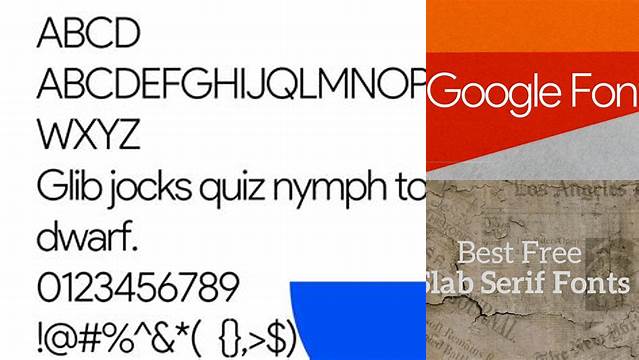
Free Google Sans Fonts: Top Alternatives For Designers
Introduction to Google Sans and Free Font Alternatives
Hey guys! Let's dive into the world of Google Sans, a font that has become synonymous with modern, clean design. You've probably seen it everywhere, from app interfaces to websites, and maybe you're even thinking about using it for your own projects. But hereâs the thing: Google Sans isn't exactly free for everyone to use in every context. So, what's a designer or developer to do? Don't worry, we've got you covered! In this comprehensive guide, weâre going to explore what makes Google Sans so appealing, its licensing restrictions, and most importantly, the awesome free font alternatives that you can use without breaking the bank or the rules. We'll also explore how to get the Google Sans font if you're developing for Android or using it within Google's ecosystem. We'll look at look-alike fonts and other open-source gems that will give your projects that sleek, contemporary feel. Whether you're working on a website, a mobile app, or even print materials, finding the right font is crucial. It sets the tone, enhances readability, and ultimately contributes to the overall user experience. So, let's jump in and discover the best options for achieving that Google Sans aesthetic while staying within the bounds of free and open-source licensing. Letâs make sure your typography game is strong!
What is Google Sans?
First off, let's understand what exactly Google Sans is. Google Sans, also known as Product Sans, is a geometric sans-serif typeface designed by Google for its corporate identity. It was first introduced in 2015 as part of Google's rebranding effort, replacing the older Google logo and font. The font is characterized by its clean lines, geometric shapes, and overall minimalist appearance, making it highly versatile for a wide range of applications. Its design emphasizes clarity and legibility, making it suitable for both display and body text. The aesthetic appeal of Google Sans lies in its simplicity and modernity. The geometric construction provides a structured and orderly feel, while subtle curves and variations add a touch of warmth and personality. This balance makes it a popular choice for tech companies and startups aiming for a contemporary and approachable brand image. The fontâs widespread use across Googleâs products and services, including Android, Chrome, and various web applications, has cemented its status as a recognizable and trusted typeface. Its influence can be seen in numerous other designs, as many seek to emulate its clean and modern aesthetic. However, the catch is that Google Sans is proprietary, meaning it's not freely available for all uses. This is where the need for free font alternatives comes into play. Knowing the nuances of Google Sans helps in identifying what qualities to look for in alternatives, ensuring your projects maintain a similar visual impact without infringing on copyright.
Top Free Font Alternatives to Google Sans
Okay, so now that we know the deal with Google Sans and its licensing, letâs get to the good stuff: free font alternatives! There are some fantastic typefaces out there that capture the spirit of Google Sans, offering a similar aesthetic without the licensing restrictions. These alternatives are perfect for a wide range of projects, whether you're designing a website, creating a mobile app, or working on print materials. The key is to find fonts that share the clean lines, geometric shapes, and overall minimalist feel of Google Sans. This section will introduce you to some of the best free alternatives available, detailing their characteristics and ideal use cases. Weâll cover everything from well-known open-source fonts to some hidden gems that you might not have discovered yet. By exploring these alternatives, you can ensure that your projects have a consistent and professional look, all while staying within the bounds of free and open-source licensing. Remember, the goal is to find a font that not only looks great but also fits the specific needs of your project, whether itâs readability, scalability, or overall aesthetic appeal. So, letâs dive in and find the perfect free font to complement your design vision!
1. Roboto
First up, we have Roboto. This is a super popular choice, and for good reason. Roboto is a neo-grotesque sans-serif typeface family developed by Google as the system font for its Android operating system. Itâs designed to be modern, approachable, and optimized for screen readability, which makes it an excellent free font alternative to Google Sans. One of the standout features of Roboto is its versatility. It comes in a variety of weights and styles, including Thin, Light, Regular, Medium, Bold, and Black, each with corresponding italic versions. This extensive family makes it suitable for a wide range of applications, from headlines and body text to UI elements and mobile interfaces. Robotoâs clean and geometric forms give it a contemporary look, while its open counters and optimized letter spacing ensure excellent readability across different screen sizes and resolutions. This makes it a particularly strong choice for digital projects, where clarity is paramount. Furthermore, Roboto is released under the Apache License 2.0, meaning itâs free to use for both personal and commercial projects. This open-source license gives you the freedom to modify and distribute the font as needed, making it a flexible option for designers and developers. If youâre looking for a free font that combines modern aesthetics with excellent readability and licensing flexibility, Roboto is definitely a top contender. Its widespread use and broad support also mean that youâll find plenty of resources and examples to help you get the most out of this versatile typeface.
2. Open Sans
Next on our list is Open Sans. This is another fantastic free font thatâs widely used and highly regarded in the design community. Open Sans is a humanist sans-serif typeface designed by Steve Matteson and commissioned by Google. Itâs characterized by its clean, open forms and neutral appearance, making it highly versatile for a variety of applications. One of the key strengths of Open Sans is its exceptional legibility. The typeface is optimized for print, web, and mobile interfaces, ensuring that text remains clear and readable across different media and screen sizes. Its open letterforms and generous spacing contribute to a comfortable reading experience, even in long passages of text. Open Sans comes in a range of weights, including Light, Regular, Semibold, Bold, and Extra Bold, each with corresponding italic versions. This variety allows you to create typographic hierarchies and add visual interest to your designs. The fontâs neutral and clean aesthetic makes it a great choice for corporate websites, user interfaces, and editorial design. Like Roboto, Open Sans is released under the Apache License 2.0, which means itâs free to use for both personal and commercial projects. This open-source license gives you the flexibility to use the font in any way you see fit, without worrying about licensing restrictions. If youâre looking for a free font that offers excellent readability, versatility, and a clean, modern look, Open Sans is an outstanding option. Its widespread adoption and support make it a reliable choice for a wide range of design projects.
3. Montserrat
Let's talk about Montserrat. This is a personal favorite of many designers, and it's easy to see why. Montserrat is a geometric sans-serif typeface designed by Julieta Ulanovsky. Inspired by the urban typography of the Montserrat neighborhood in Buenos Aires, Argentina, this free font exudes a modern and sophisticated vibe. What sets Montserrat apart is its elegant simplicity. The font features clean lines, geometric shapes, and a slightly condensed design, giving it a distinct and stylish appearance. Itâs particularly well-suited for headlines, logos, and branding materials, where its unique character can really shine. Montserrat comes in a wide range of weights, from Thin to Black, each with corresponding italic versions. This extensive family provides plenty of flexibility for creating typographic hierarchies and adding visual interest to your designs. The variety of weights makes it suitable for both display and body text, although itâs often used to great effect in larger sizes. Being an open-source font, Montserrat is licensed under the SIL Open Font License (OFL), meaning itâs free to use for personal and commercial projects. This license also allows you to modify and redistribute the font, making it a versatile choice for designers and developers. If youâre looking for a free font that combines modern aesthetics with a touch of elegance and personality, Montserrat is an excellent choice. Its distinctive character and broad range of weights make it a standout option for a variety of design applications.
4. Lato
Another fantastic free font alternative we should explore is Lato. Lato is a sans-serif typeface designed by Ćukasz Dziedzic. Described as a âsemi-roundedâ sans-serif, Lato strikes a balance between a classic and contemporary feel, making it a versatile choice for many projects. What makes Lato special is its dual nature. While it has a friendly and approachable appearance, it also conveys a sense of seriousness and stability. This makes it suitable for a wide range of applications, from corporate websites and branding materials to user interfaces and editorial design. Lato is exceptionally legible, thanks to its open letterforms and well-balanced proportions. Itâs designed to work well in both print and digital environments, ensuring a comfortable reading experience across different media. The font family includes a variety of weights, including Hairline, Thin, Light, Regular, Bold, and Black, each with corresponding italic versions. This extensive range of weights provides plenty of flexibility for creating typographic hierarchies and adding visual emphasis to your designs. As an open-source font, Lato is licensed under the SIL Open Font License (OFL), meaning itâs free to use for both personal and commercial projects. This license gives you the freedom to use, modify, and distribute the font without any restrictions. If youâre seeking a free font that offers a blend of modernity and warmth, with excellent readability and versatility, Lato is definitely worth considering. Its balanced design and wide range of weights make it a valuable addition to any designerâs toolkit.
5. Nunito Sans
Last but not least, let's talk about Nunito Sans. This is a great free font option if you're after a softer, more rounded look. Nunito Sans is a sans-serif typeface designed by Jacques Le Bailly. It's an extended version of the original Nunito font, which was a rounded terminal sans-serif. Nunito Sans maintains the rounded terminals but has been developed into a more complete family with a wider range of weights. The rounded terminals of Nunito Sans give it a friendly and approachable feel, making it a great choice for projects that require a touch of warmth and personality. Itâs particularly well-suited for user interfaces, childrenâs books, and designs aimed at a younger audience. However, its clean and legible design also makes it suitable for more formal applications. Nunito Sans comes in a variety of weights, from ExtraLight to Black, each with corresponding italic versions. This extensive family provides plenty of flexibility for creating typographic hierarchies and adding visual interest to your designs. The wide range of weights ensures that you can use Nunito Sans effectively in both headlines and body text. Being an open-source font, Nunito Sans is licensed under the SIL Open Font License (OFL), meaning itâs free to use for personal and commercial projects. This license allows you to use, modify, and distribute the font as needed. If youâre looking for a free font that combines a modern aesthetic with a friendly, rounded appearance, Nunito Sans is an excellent choice. Its versatility and extensive weight range make it a valuable asset for any design project. So, if you want to add a touch of softness and warmth to your designs, give Nunito Sans a try!
Conclusion: Embrace the World of Free Fonts
So, guys, we've reached the end of our journey through the world of free fonts and Google Sans alternatives! We've covered a lot of ground, from understanding what Google Sans is and its licensing restrictions to exploring some fantastic free options like Roboto, Open Sans, Montserrat, Lato, and Nunito Sans. We've also discussed how to download, install, and use these fonts in your design projects, whether you're working on a website, a mobile app, or graphic design materials. The key takeaway here is that you don't need to break the bank to achieve a modern, clean aesthetic in your designs. There are plenty of high-quality free fonts available that can give you a similar look and feel to Google Sans without the licensing headaches. Embracing these alternatives not only saves you money but also supports the open-source community and promotes a more accessible design ecosystem. By using open-source fonts, youâre contributing to a collaborative effort that benefits designers and developers around the world. As you continue your design journey, remember to experiment with different fonts and find the ones that best suit your projects. Typography is a crucial element of design, and choosing the right font can make a huge difference in the overall impact of your work. So, go forth and explore the world of free fontsâthereâs a whole universe of typographic possibilities waiting to be discovered!